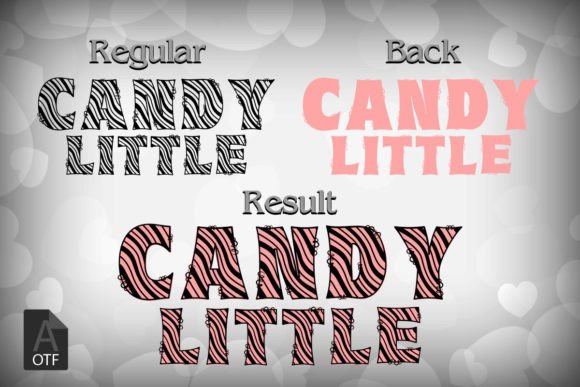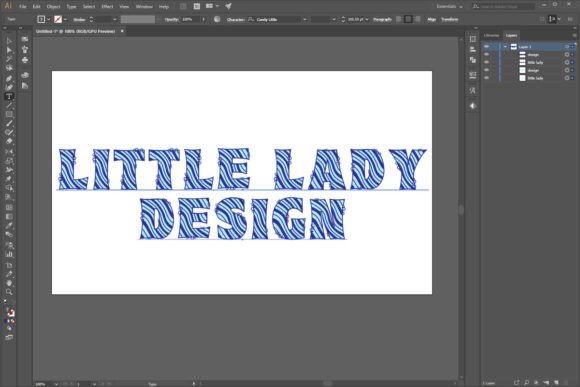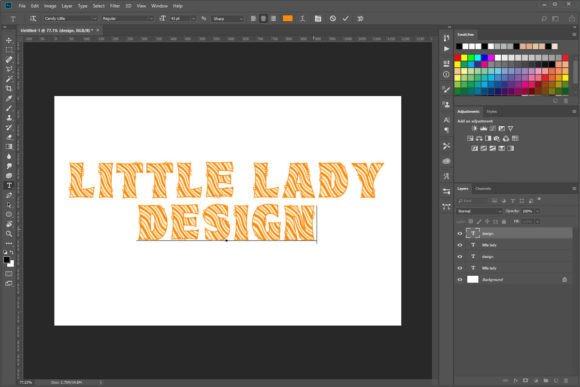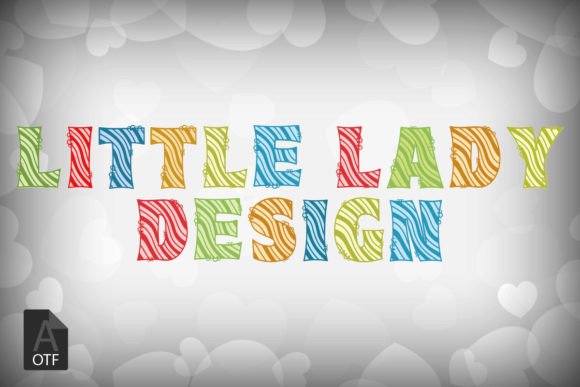
Candy Little Font: A Sweet Addition to Your Design Palette
Who among us hasn’t found ourselves lost in a world of color and typography while browsing through design inspiration boards or Pinterest? As creatives, we’re constantly on the lookout for the next big thing to elevate our projects and leave a lasting impression. For those seeking a font that embodies the essence of retro charm and vibrant energy, look no further than Candy Little Font.
| 👤 Author | Little Lady Design |
This delightful display font is designed to make a statement, with its bold, bright colors and playful aesthetic that’s sure to capture attention. Whether you’re working on an advertising campaign, packaging design, or web project, Candy Little Font is the perfect addition to your design toolkit. Its versatility and visual appeal make it an invaluable asset for designers seeking to add a touch of whimsy and fun to their work.
Candy Little Font Key Features
- Font Size: The font comes in two sizes: a standard size and a condensed size, ideal for use in various design applications.
- Resolution: The Candy Little Font is designed for use at high resolutions, making it perfect for digital applications such as web design, mobile apps, and video games.
- Unique Characteristics: The font features a unique, whimsical design with a mix of bold and delicate lines, making it perfect for adding a touch of playfulness to designs.
- Language Support: The font supports a wide range of languages, including Latin-based languages, Cyrillic, and Greek.
- Font Style: The Candy Little Font comes in a variety of styles, including regular, italic, bold, and bold italic, allowing designers to add depth and variety to their designs.
Candy Little Font Review
Overall, I think Candy Little Font is a fun, playful font that can add a touch of whimsy to any design project. ✨ It’s great for creating eye-catching headings, titles, and even body text in the right context. ✨ The font’s irregular shapes and rounded edges give it a friendly, approachable feel that’s perfect for projects targeting a younger audience or those with a lighthearted tone.
Here are some of the things that work well in Candy Little Font:
- ✨ Unique, hand-drawn feel that adds personality to designs
- ✨ Suitable for a wide range of design projects, from logos to magazines
- ✨ Comes in multiple weights and styles to accommodate different design needs
However, I do think there are some limitations to consider:
- ⚠️ May not be suitable for formal or professional projects due to its playful, informal feel
- ⚠️ May be difficult to read in smaller text sizes or when used extensively throughout a design
- ⚠️ Limited language support, which may limit its use in multilingual designs
Overall, I think Candy Little Font is a great choice for designers looking to add a touch of whimsy to their projects. Just be sure to use it thoughtfully and in the right context to avoid overwhelming the design.
Tips for getting the most out of Candy Little Font in Canva: Use it to add a playful touch to your social media graphics and blog posts.
Tips for getting the most out of Candy Little Font in Adobe Photoshop or Illustrator: Use it to create custom logos and branding materials.
Tips for getting the most out of Candy Little Font in PowerPoint or Word: Use it to add a whimsical touch to your presentations and reports.
Candy Little Font is perfect for:
- Social media graphics
- Blog posts and articles
- Custom logos and branding materials
Remember to use Candy Little Font sparingly to avoid overwhelming your design.